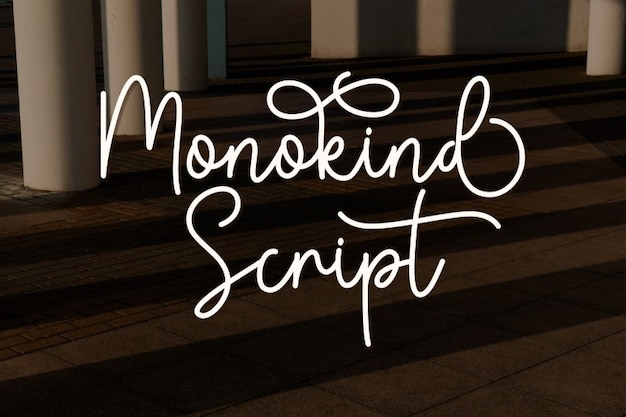
Monokind Script
Monokind Script Font
Monokind Script is an exquisite font that combines elegant swashes with a handcrafted feel. Its flowing, scripty letters mimic the beauty of traditional calligraphy, making it perfect for invitations, branding, and personal projects. With graceful curves and distinctive flourishes, Monokind Script adds a touch of sophistication and warmth, bringing any design to life with its handwritten charm.